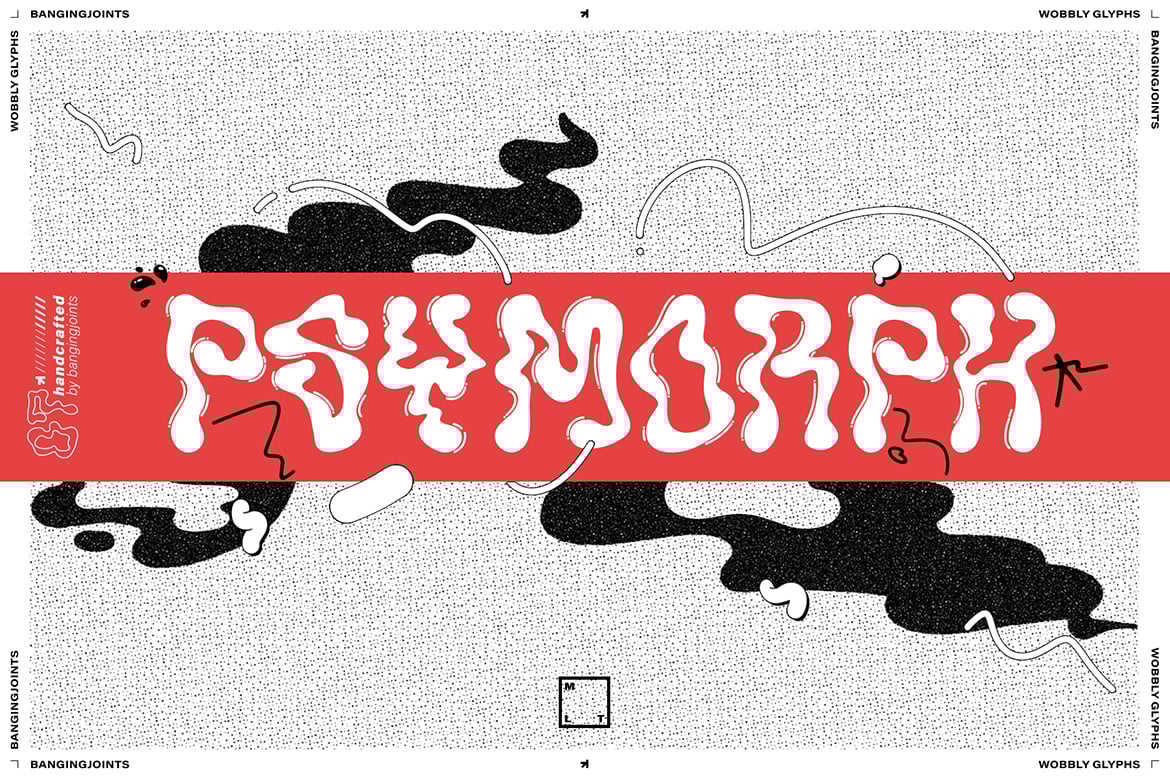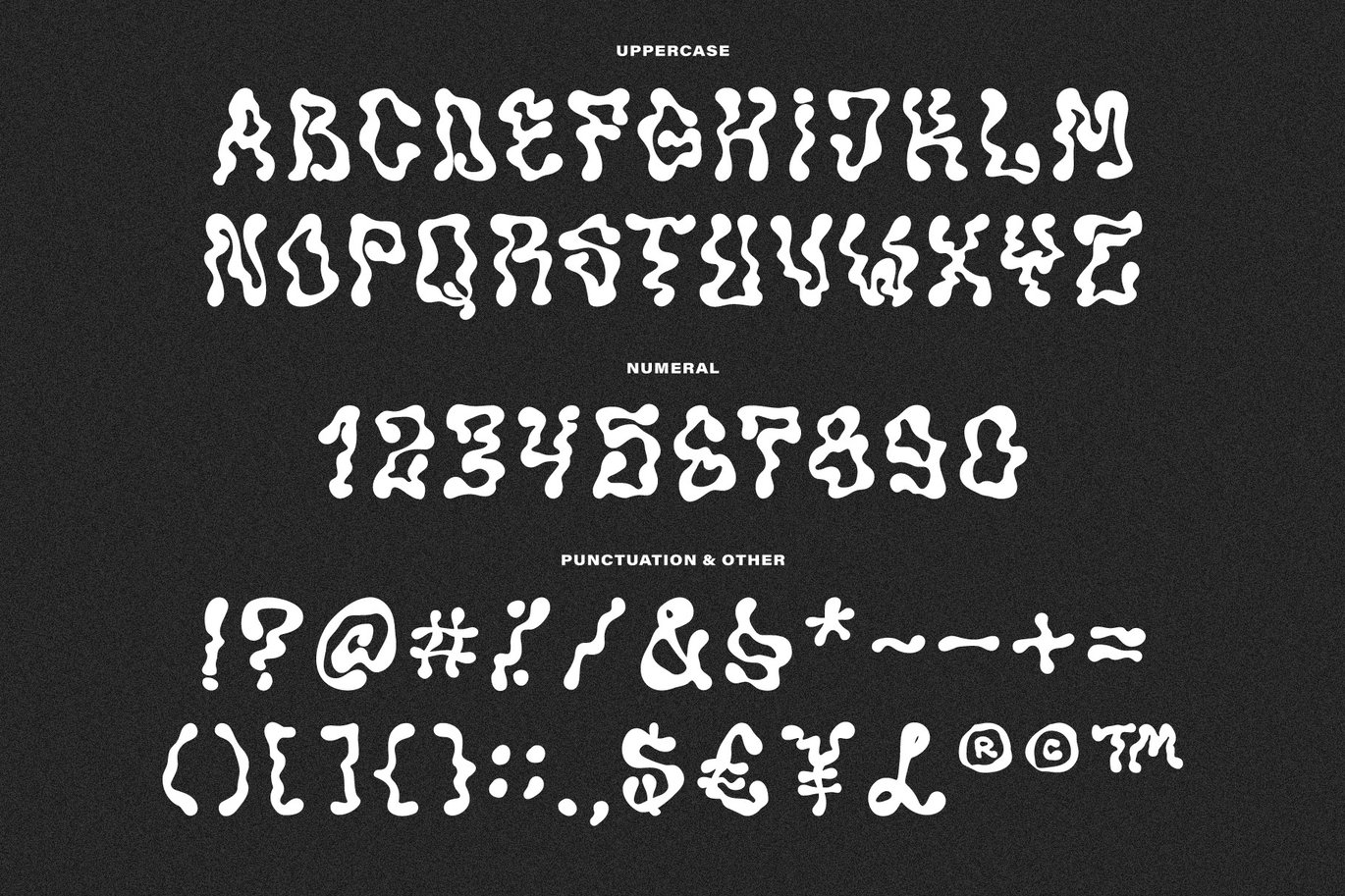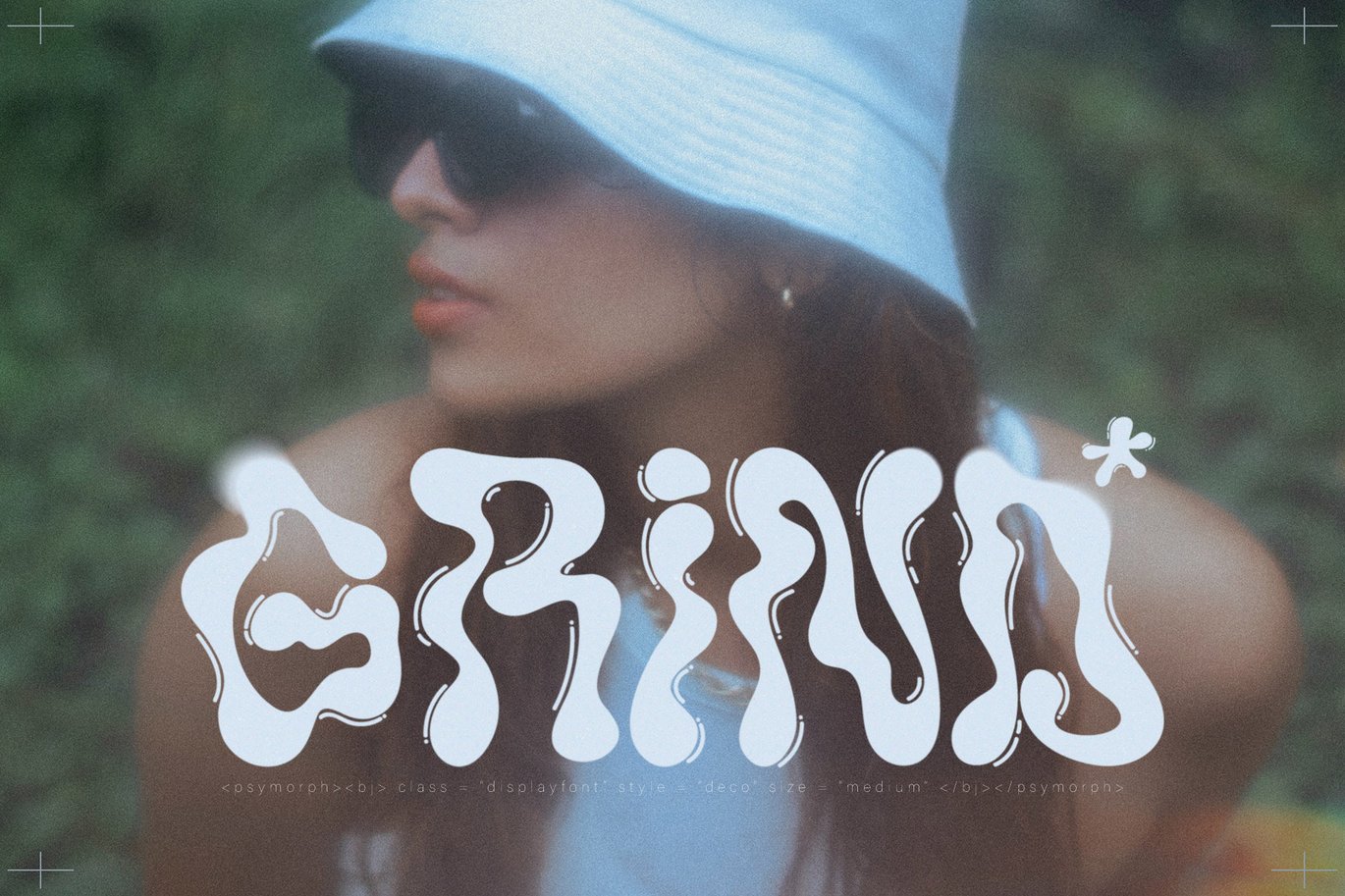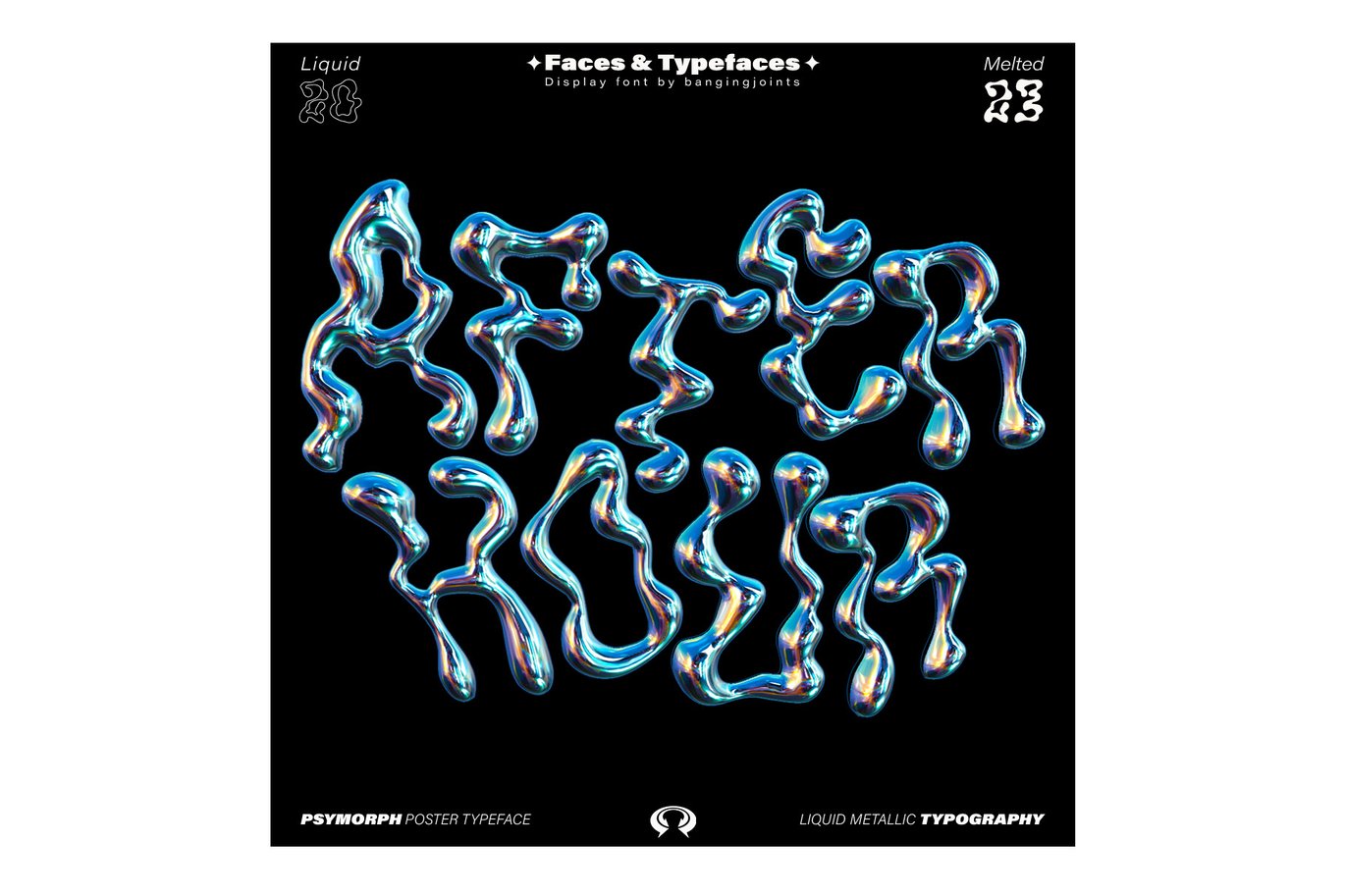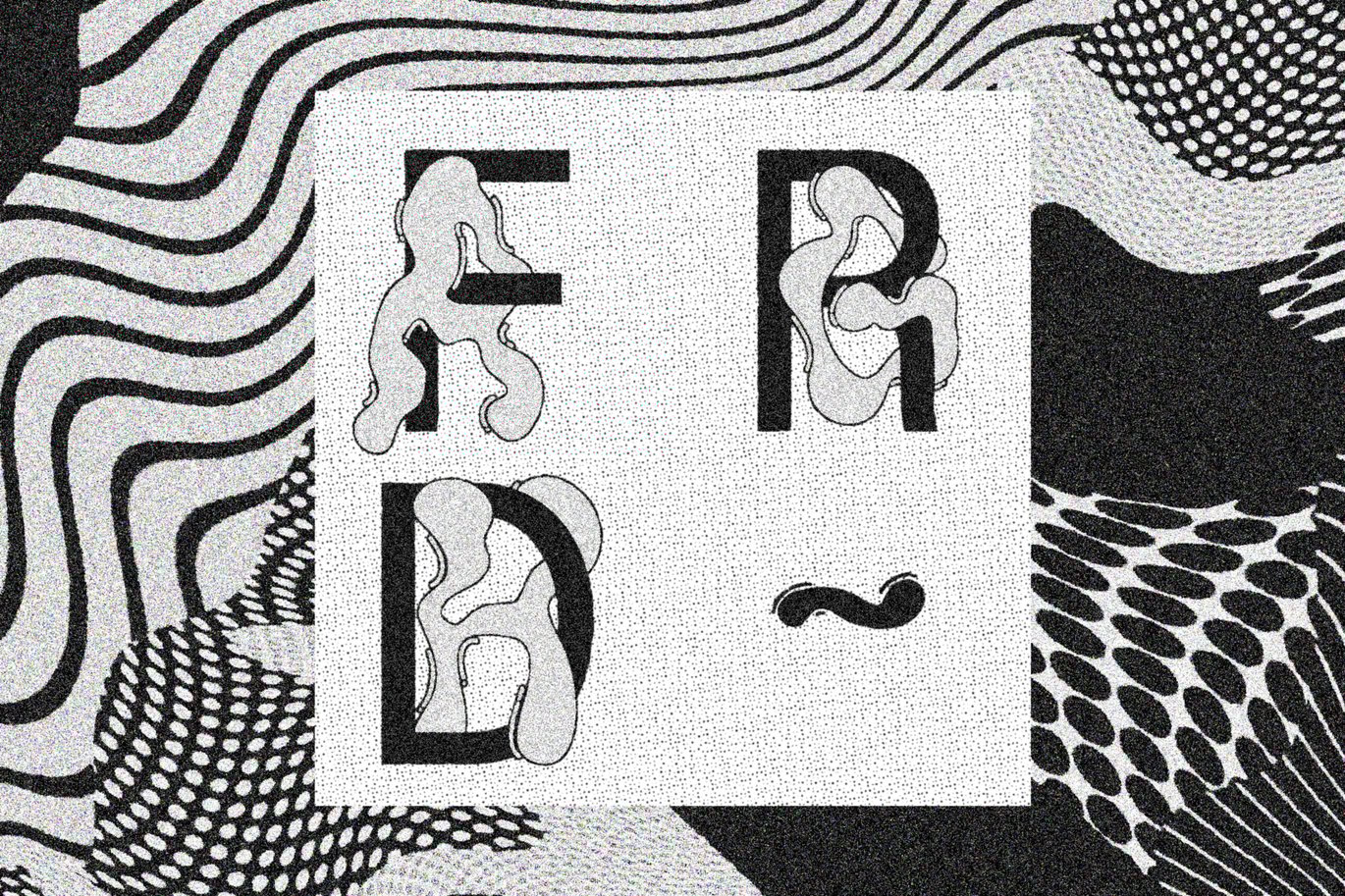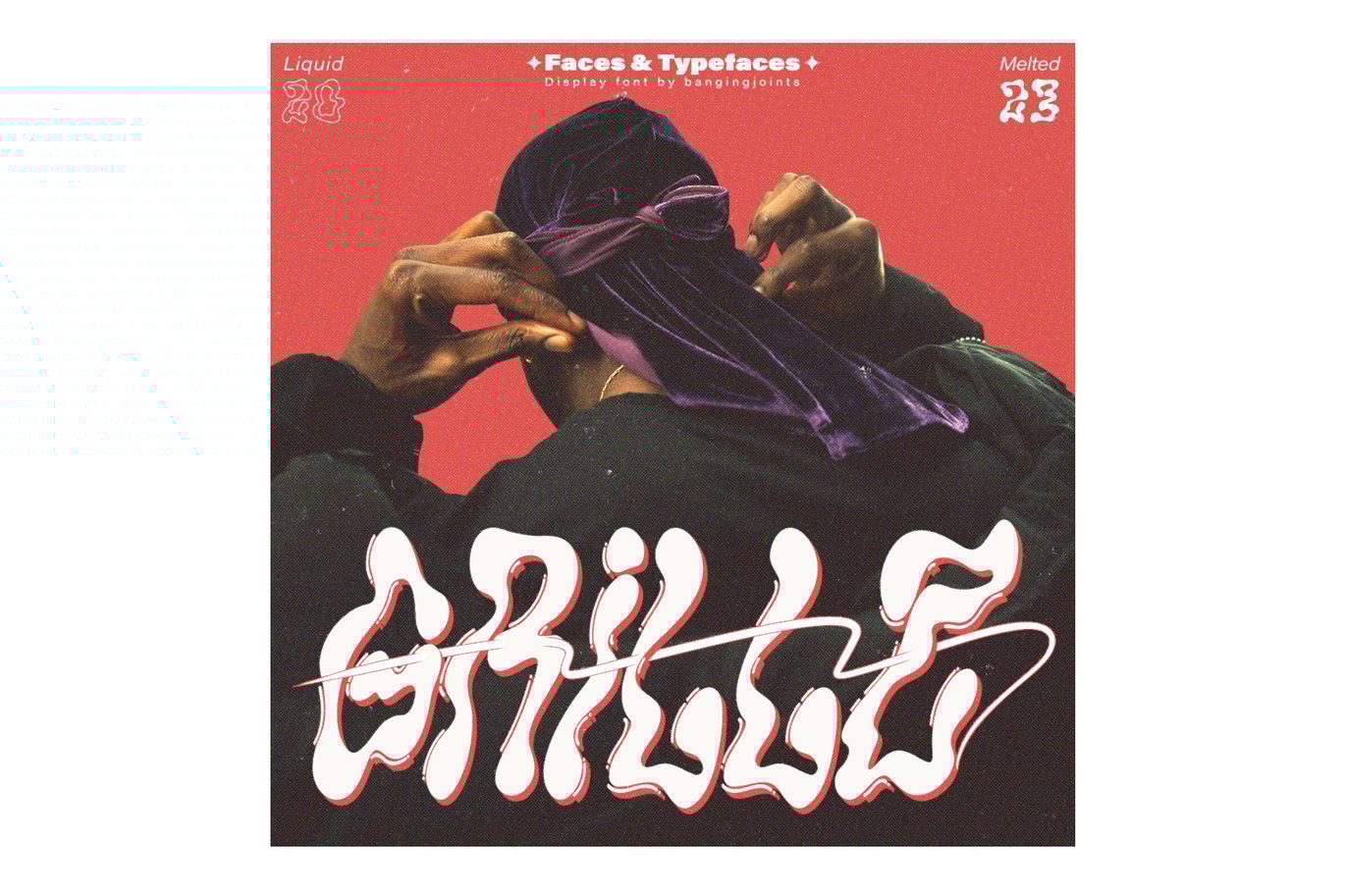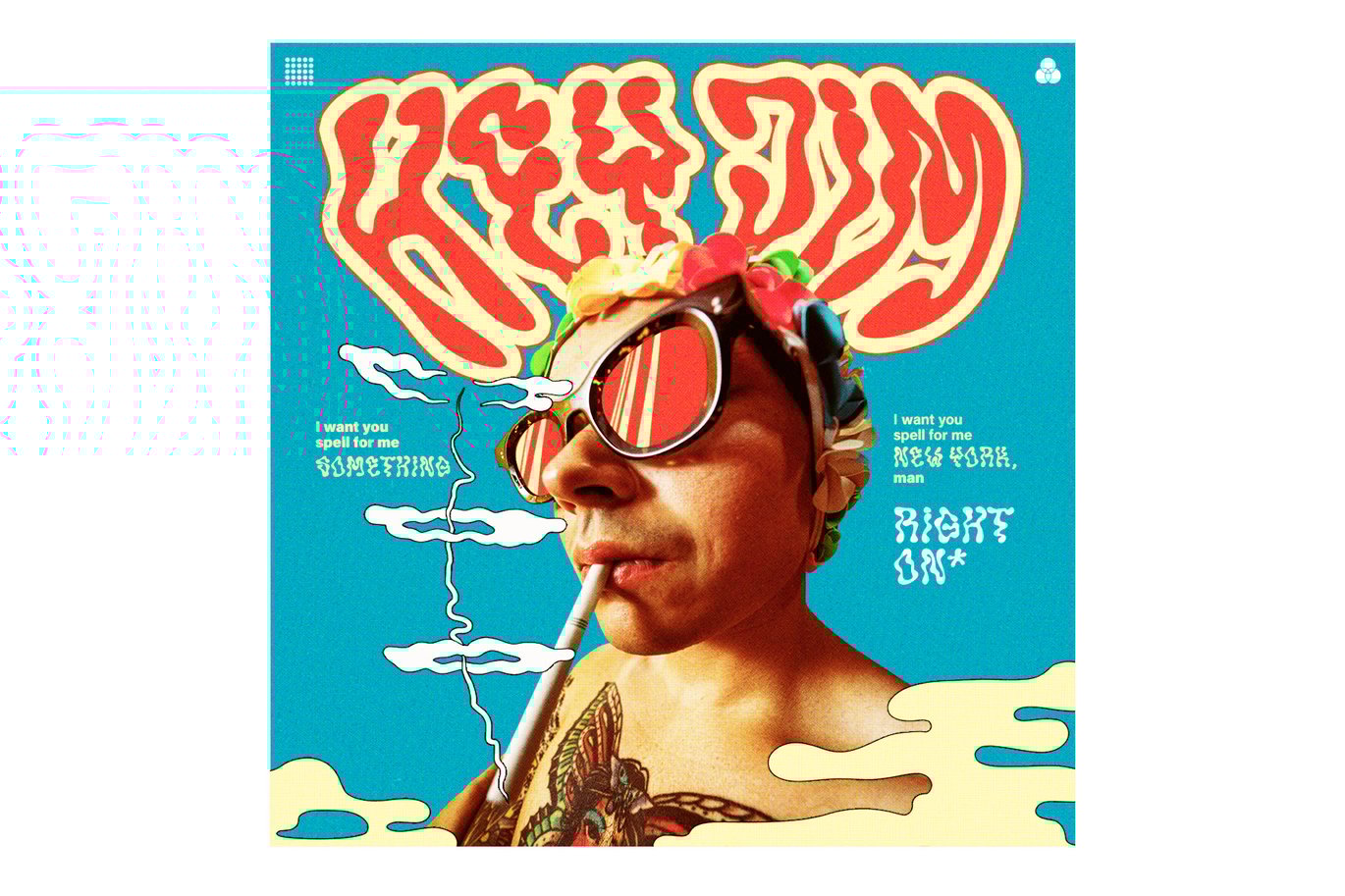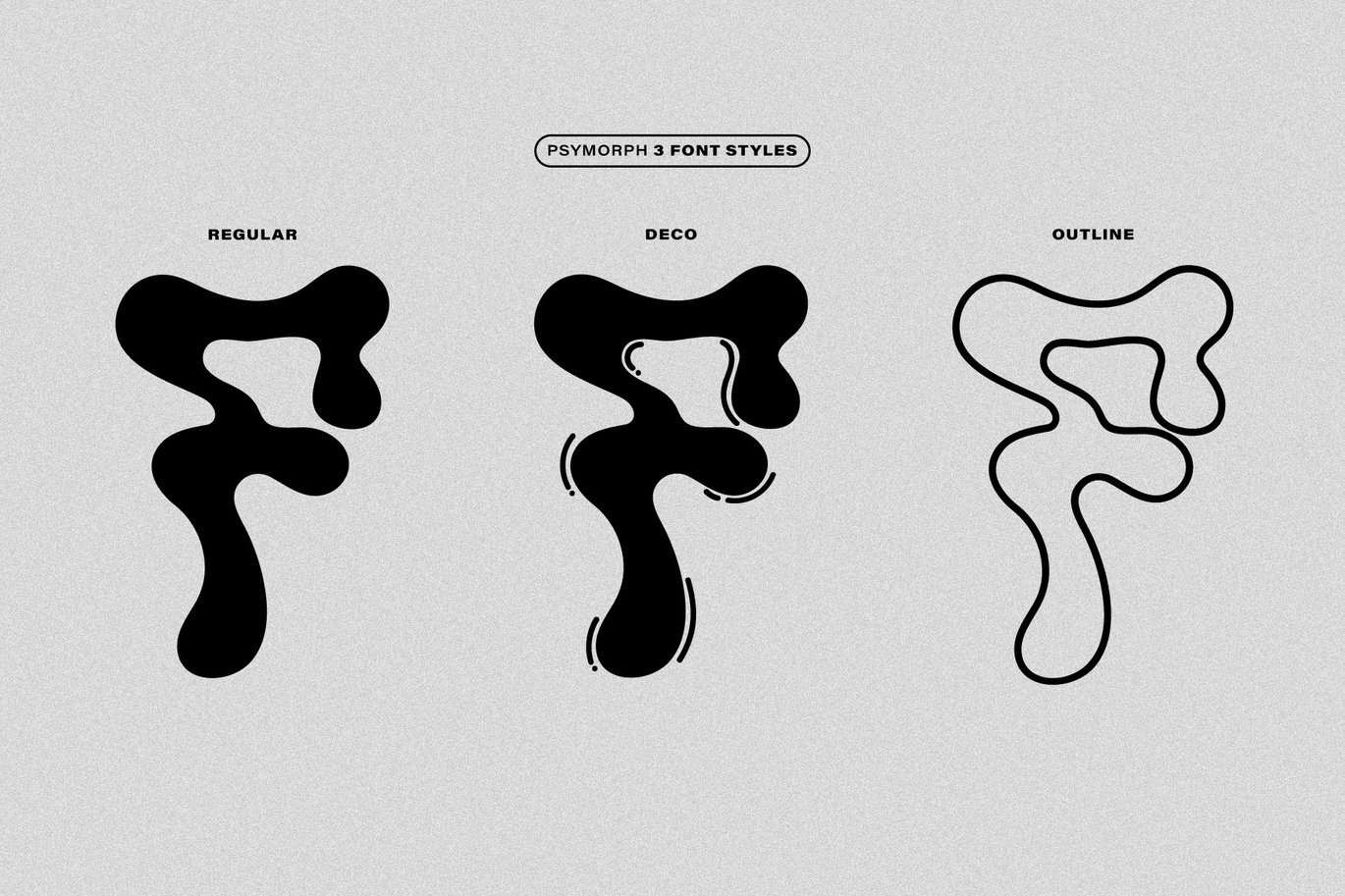
Psymorph – Trippy Display Font
Psymorph is a wobbly, funky, groovy hand-drawn font, originally inspired by the Y2K aesthetic.
It comes in 3 styles, suitable for posters, logos, t-shirts, flyers, prints, and other branding materials.
FEATURES:
•   Uppercase
•   Numbers
•   Punctuation
•   3 Styles Available